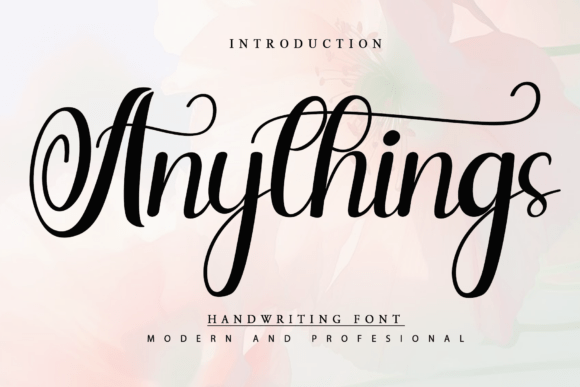
The Elusive Perfect Font: My Encounter with Anythings Font
I still remember the countless hours I spent searching for the perfect font for a wedding invitation project. My client wanted something elegant, yet personal; something that would make their special day truly unforgettable. As a designer, I’ve had my fair share of font hunting, but this project was different. I was determined to find the perfect fit. That’s when I stumbled upon Anythings Font, a beautifully flowing script font that radiates charm and sophistication.
First Impressions: A Love Affair with Anythings Font
As soon as I opened Anythings Font, I knew I had found something special. The smooth curves and handwritten feel immediately caught my attention. It’s the kind of font that makes you feel like you’re reading a personal letter from a close friend. The elegance and charm it exudes are undeniable, making it perfect for wedding invitations, personal branding, elegant packaging, and romantic quotes.
What I Love About Anythings Font ✨
• 💫 Smooth, flowing curves that give it a natural, handwritten feel
• 🎨 Versatile and adaptable to various design projects
• 💕 Emotive and personal, perfect for conveying feelings and emotions
• ⚠️ Limited use of uppercase letters, which can be a bit restrictive for certain projects
• 🤔 Some users may find the font too ornate or delicate for certain applications
The Story Behind Anythings Font: Designer Inspiration
Anythings Font was created with the intention of capturing the essence of handwritten communication. The designer aimed to create a font that would evoke feelings of warmth, elegance, and sophistication. Inspired by traditional calligraphy and handwriting, Anythings Font is a beautiful example of modern typography.
Font Name Anythings Font
Author pinkmeca
What is the best use for Anythings Font? Anythings Font is perfect for wedding invitations, personal branding, elegant packaging, and romantic quotes.
Is Anythings Font suitable for body text? While Anythings Font is highly legible, it’s best suited for headlines and short paragraphs. For longer body text, a more traditional font may be more suitable.
Does Anythings Font come with OpenType features? Yes, Anythings Font features OpenType features, including ligatures, stylistic alternates, and swashes.